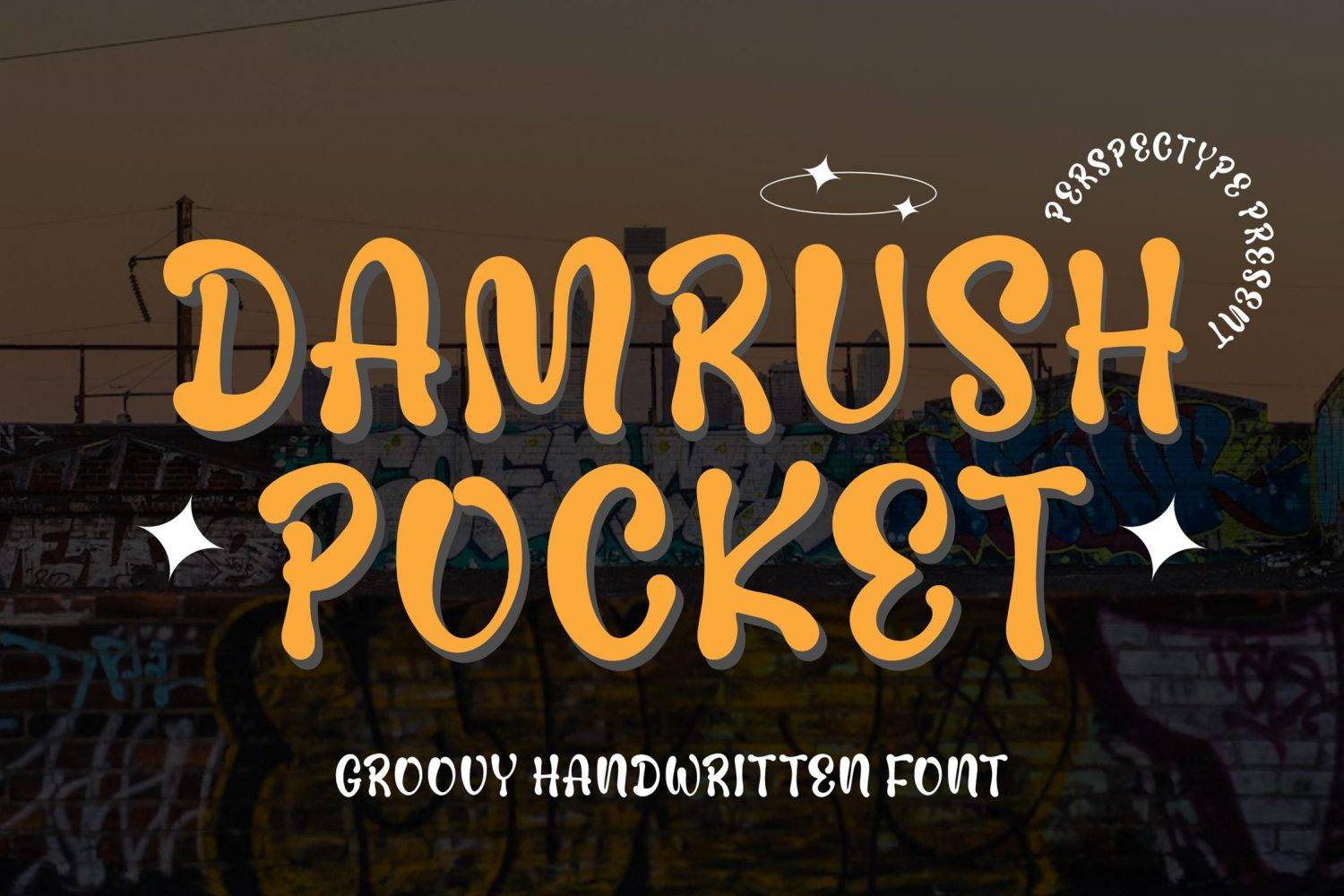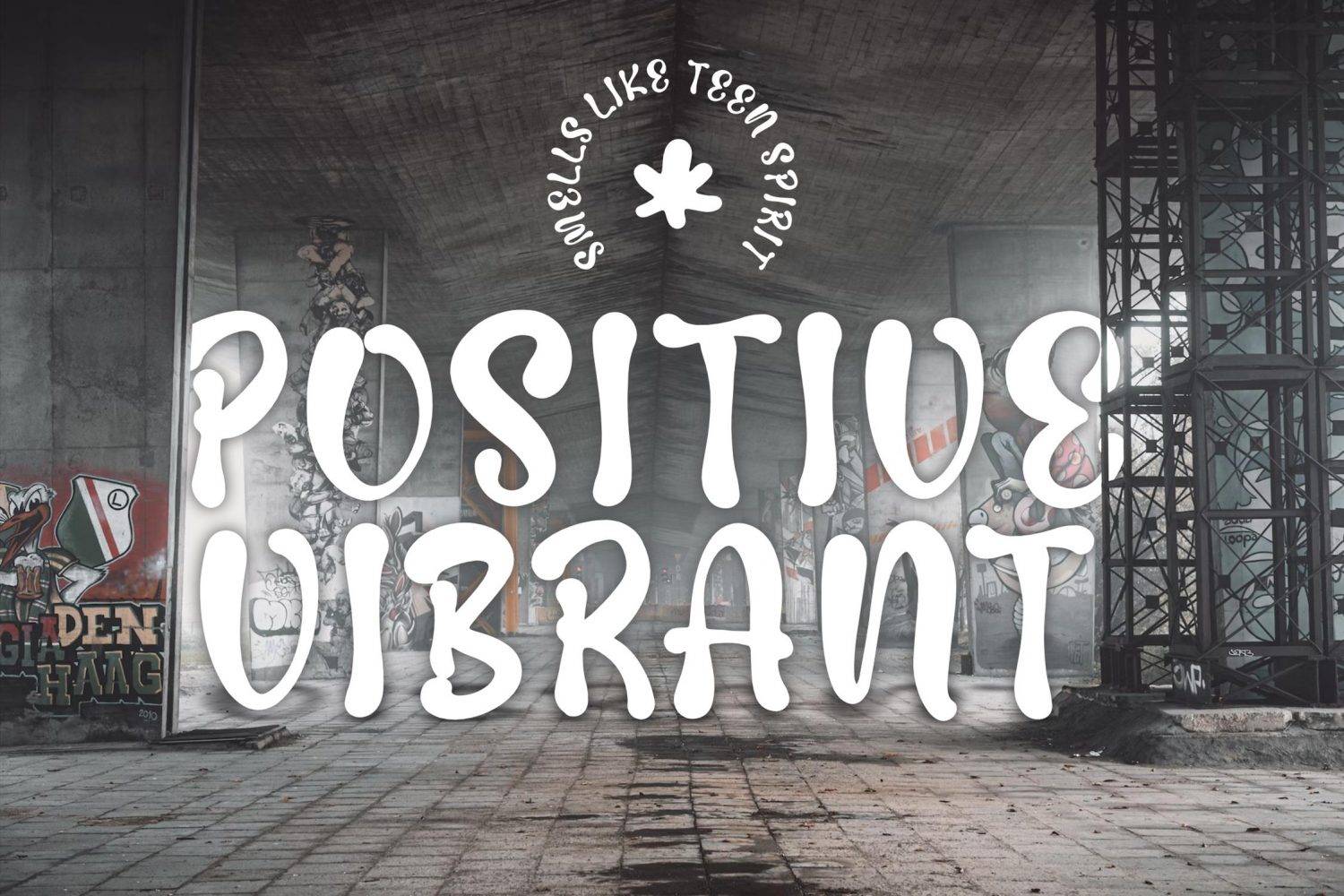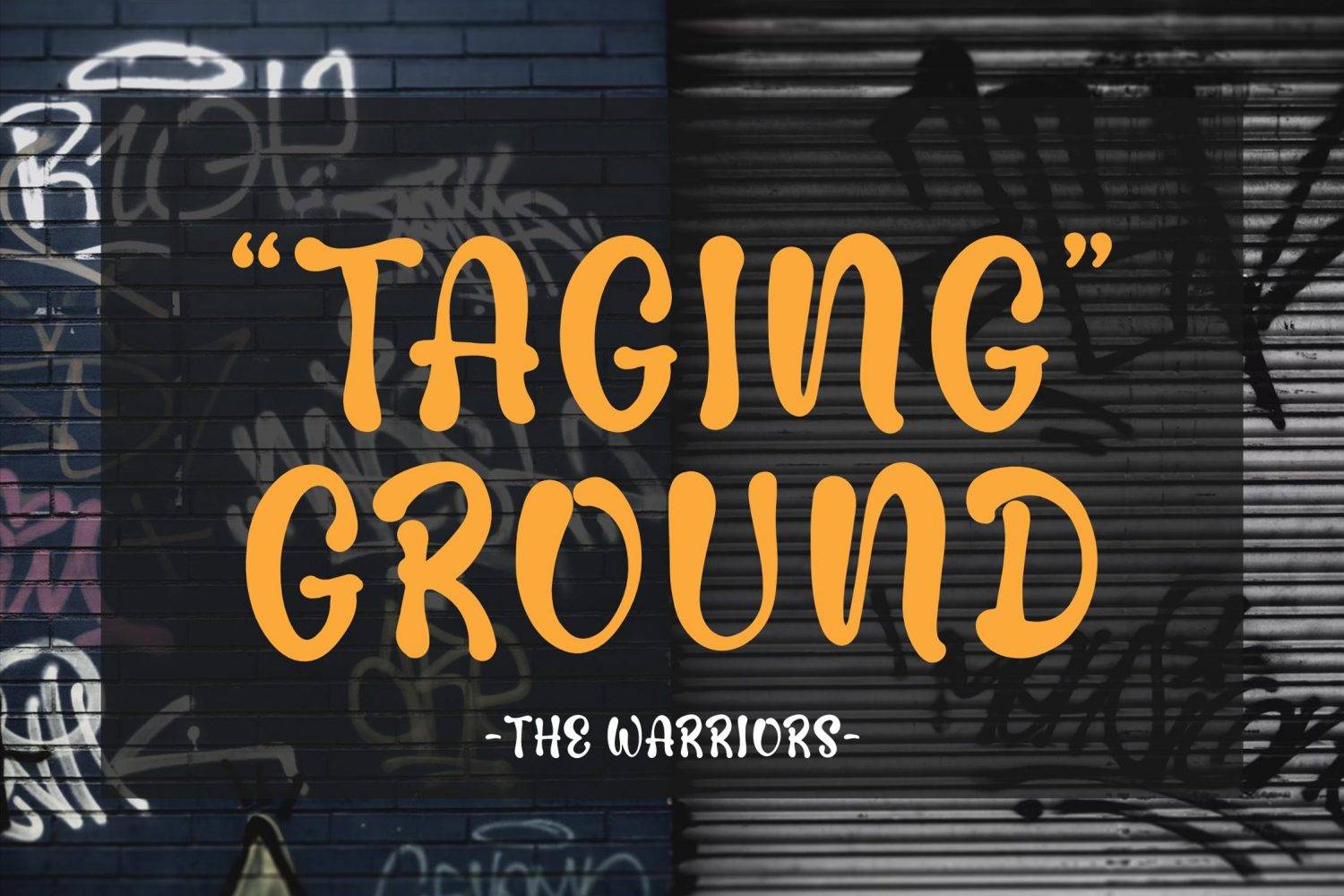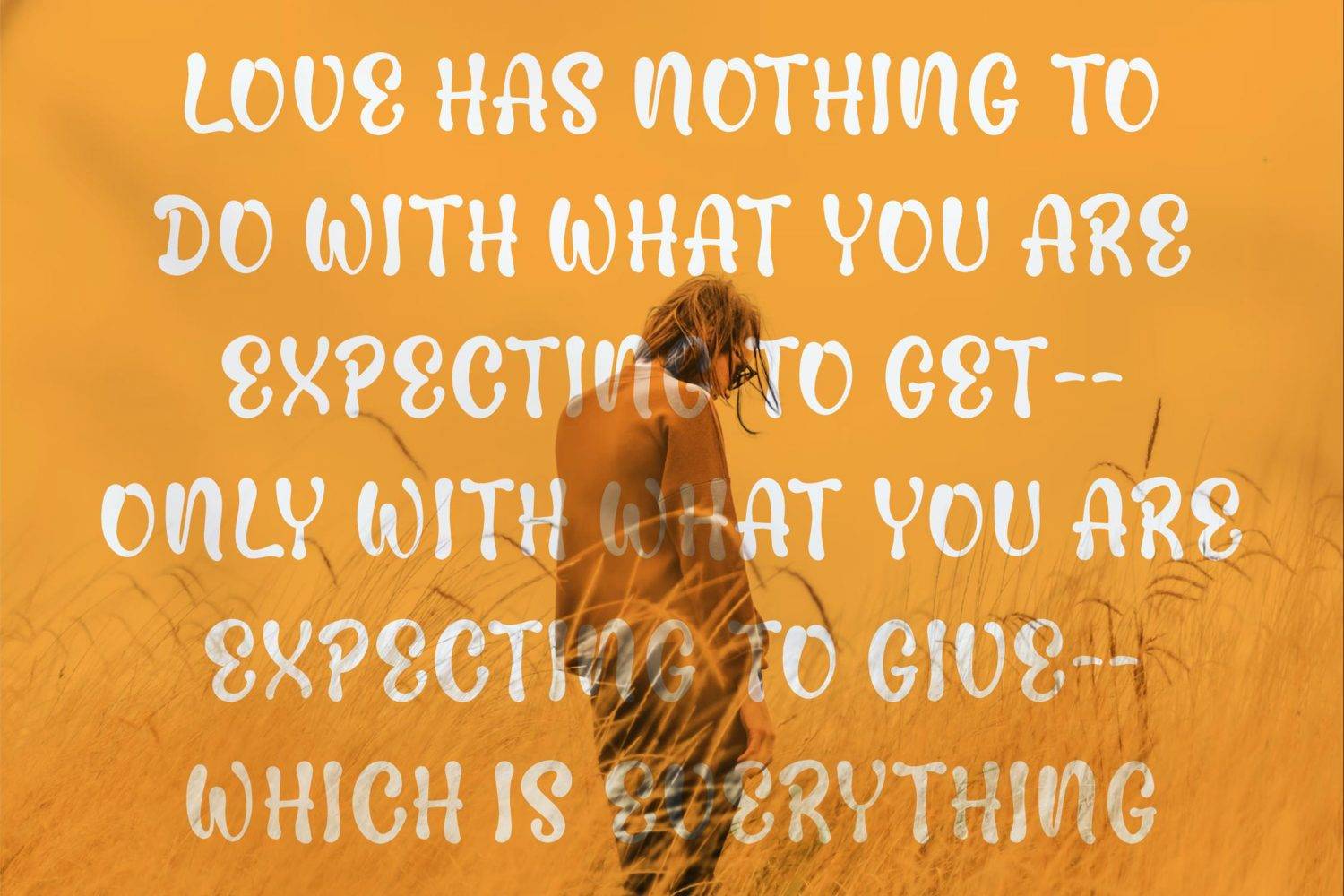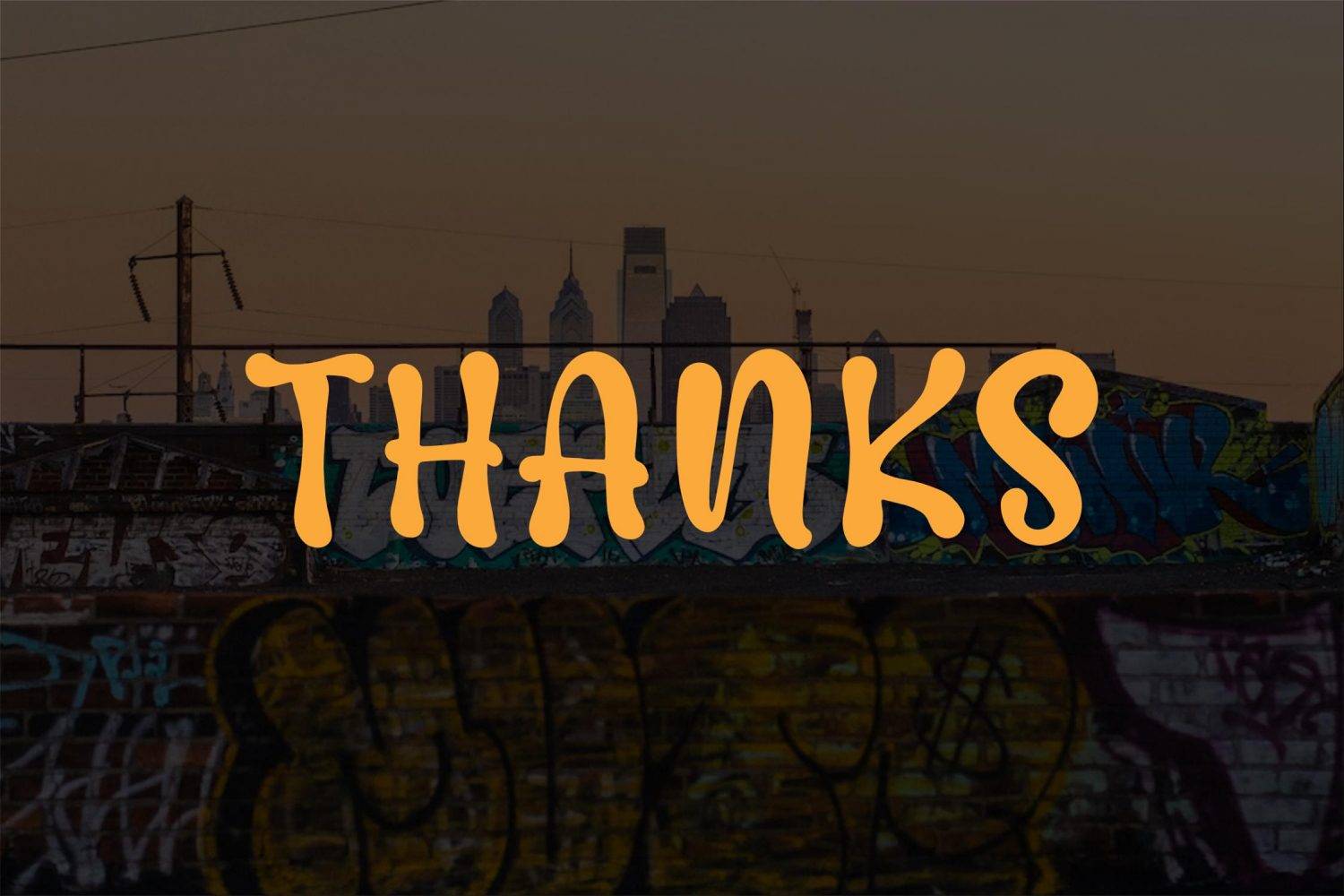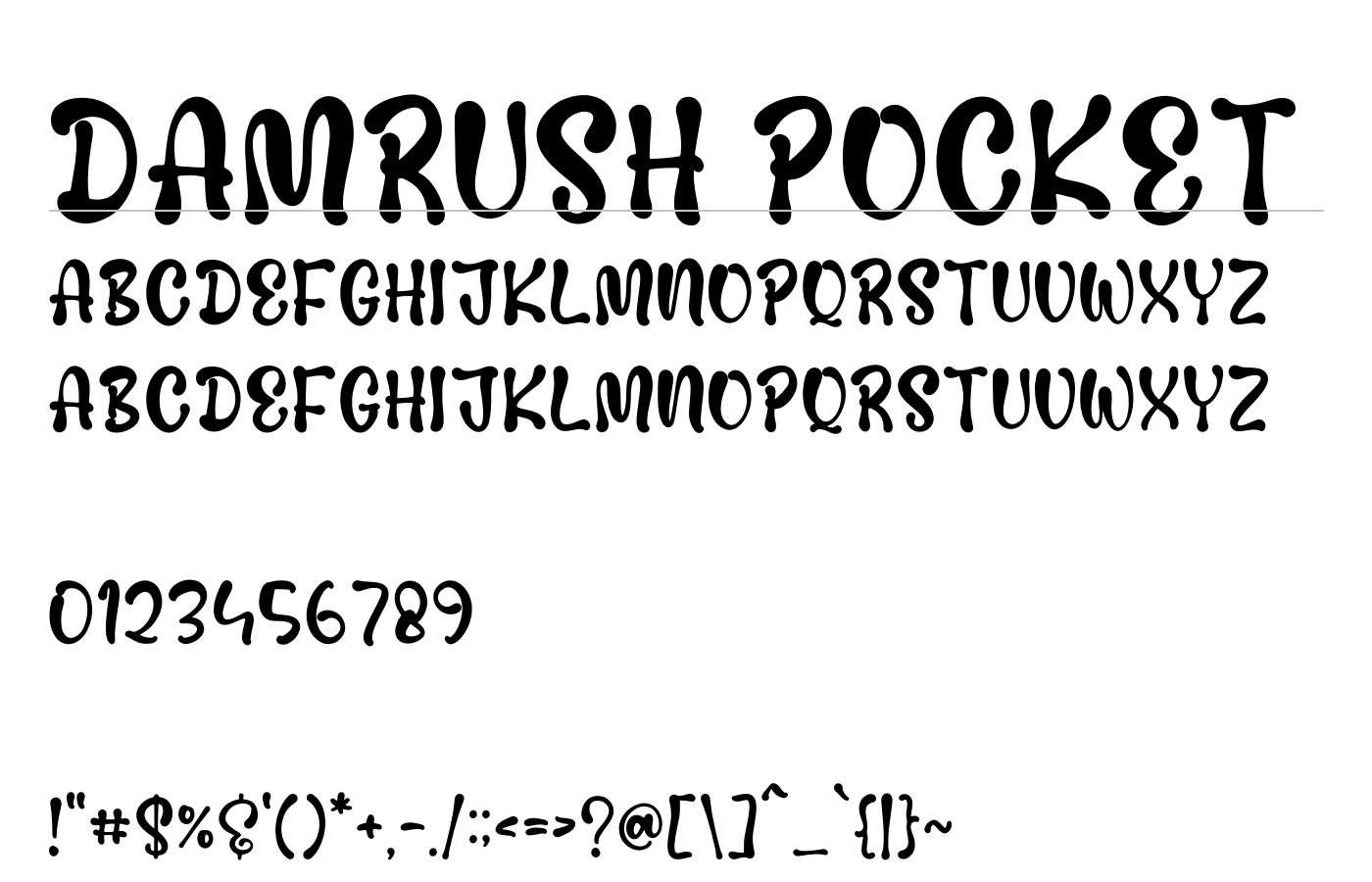
Damrush Pocket is a playful, hand-drawn sans serif font with a lively and rounded character. It features uneven strokes and whimsical letterforms that give it a casual, friendly vibe, making it ideal for fun, creative projects, children’s materials, and informal branding. Its unique personality shines in headlines, logos, and packaging where a quirky, approachable style is desired.
Damrush Pocket Font
About Damrush Pocket Font